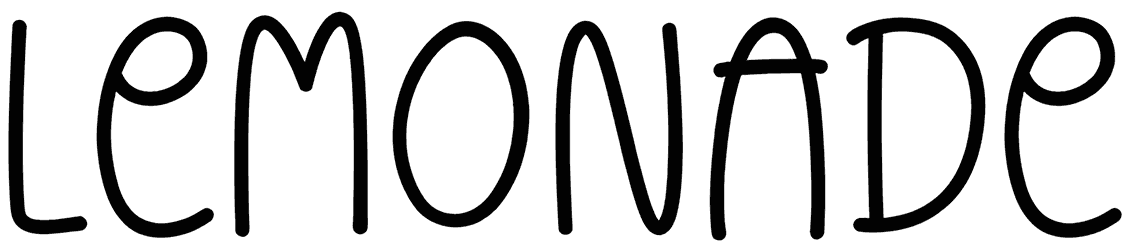
Lemonade Font
If the thought of using script fonts makes you break out in a cold sweat, don’t be afraid! Wipe off your brow and use Lemonade. This doodle font brings you the pleasure of legible designs with a fantasy and childish atmosphere that can make you one of the best.
The absence of small letters in this font has made it suitable for large-scale projects such as posters, advertisements, and headlines, and it is a perfect match for children’s and fiction projects.